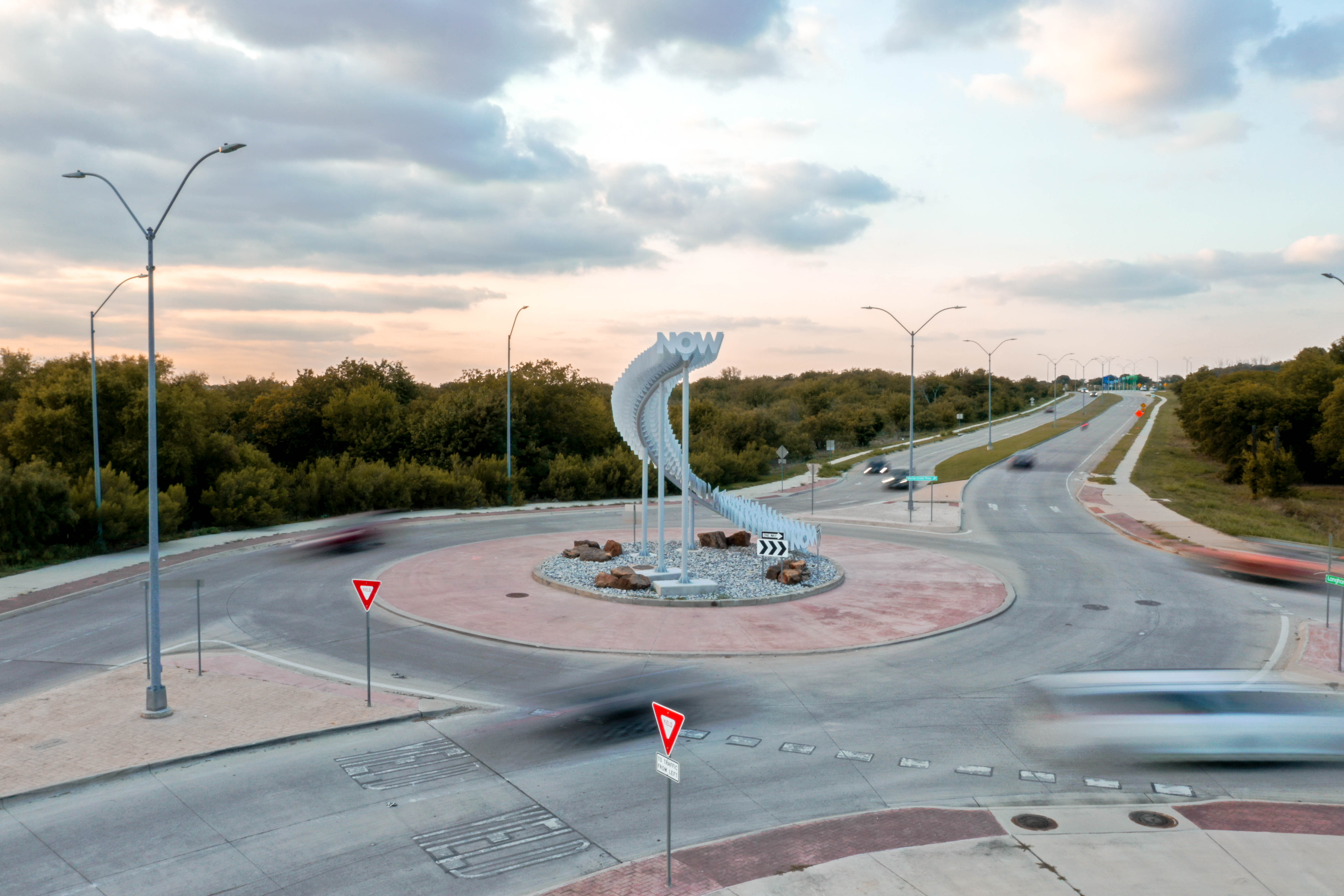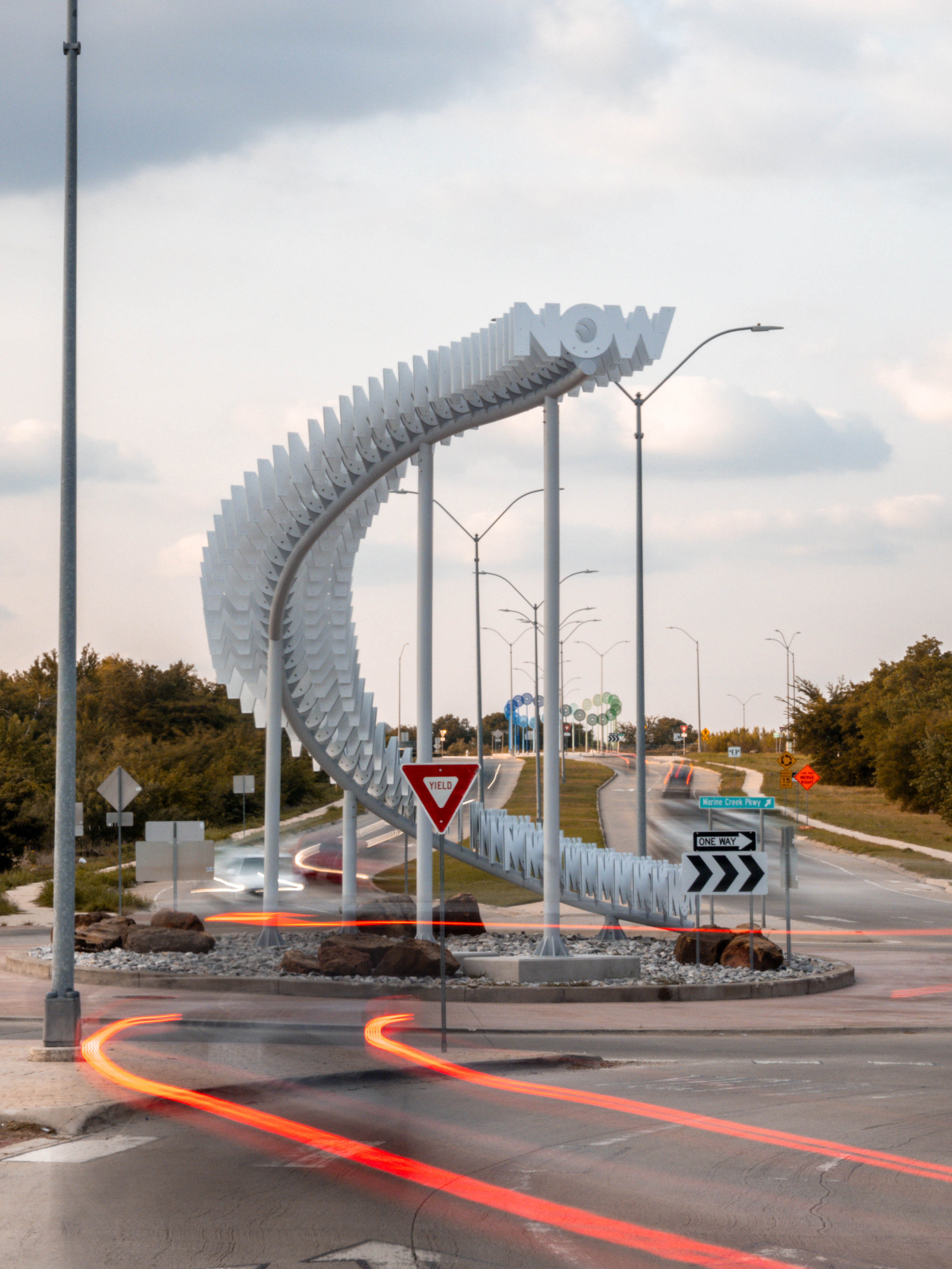
A Very Long Now
Artist Alicia Eggert and architect H James Lucas designed a 28¾-foot-tall steel & aluminum public artwork for Fort Worth, TX, which was fabricated and installated by 900 North Studios. Structural engineering by AJ Kuhn; placement designed in coordination with civil engineer Jim DeOtte. Local contractor Northstar Construction completed the foundation work and final hardscaping. ArrowType Name Sans was the basis of the lettering, which was interpolated across 60 steps so that 'NOW' could be reversed across the piece.
Eggert: “How would our behaviors change if we imagined a ‘now’ that extends 10,000 years into the past, or 10,000 years into the future? ‘A Very Long Now’ encourages both living in the present and thinking in longer terms. There are 60 NOWs in total, which alludes to those small increments of time counted by clocks—the number of seconds in a minute and the number of minutes in an hour.”